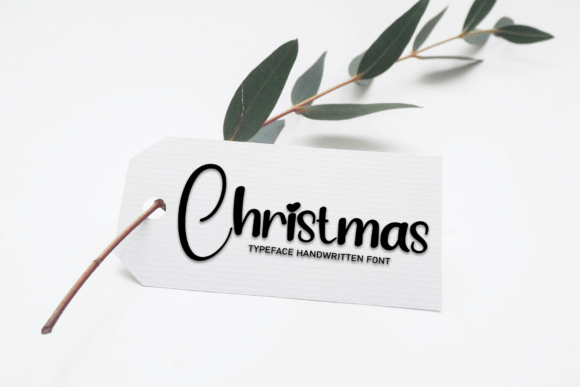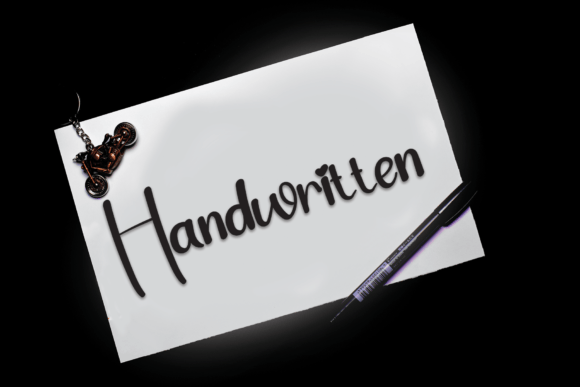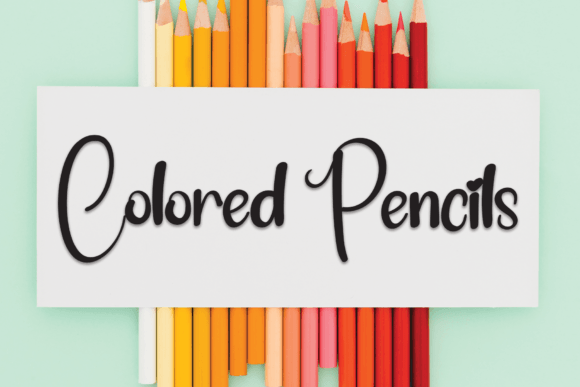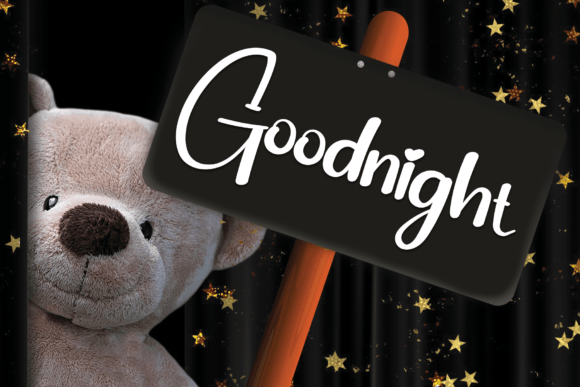
Baby Boho Font: The Ultimate Handwritten Font for Designers and Crafters
In the world of typography, fonts play a crucial role in conveying emotions and setting the tone for various design projects. For designers and crafters looking for a simple yet friendly handwritten font, Baby Boho is an excellent choice. This versatile font is perfect for a wide range of applications, from crafts and digital design to presentations and greeting cards. In this article, we’ll explore the features and benefits of the Baby Boho font and why it’s poised to become your go-to font for any occasion.
What is Baby Boho Font?
Baby Boho is a beautiful, handwritten font designed to bring a touch of warmth and personality to your designs. Its simple and friendly appearance makes it an ideal choice for projects that require a personal and approachable feel. The font’s clean lines and rounded edges give it a soft, inviting look that’s sure to capture the hearts of your audience.
Key Features of Baby Boho Font
- Handwritten appearance: Baby Boho boasts a genuine handwritten look that’s perfect for creating personalized designs.
- Simple and friendly: The font’s simplicity and friendly tone make it suitable for a wide range of projects, from formal to informal.
- Versatile: Baby Boho can be used for various design applications, including crafts, digital design, presentations, and greeting cards.
- Easy to read: The font’s clear and legible design ensures that your text is easy to read, even at smaller sizes.
Benefits of Using Baby Boho Font
So, why should you choose Baby Boho font for your design projects? Here are some benefits that make it an excellent choice:
- Emotional connection: The font’s handwritten appearance and friendly tone help create an emotional connection with your audience.
- Flexibility: Baby Boho’s versatility allows you to use it for various projects, from digital designs to handmade crafts.
- Time-saving: With Baby Boho, you can quickly create professional-looking designs without spending hours on typography.
- Unique style: The font’s distinctive style sets it apart from more traditional fonts, giving your designs a unique touch.
Use Cases for Baby Boho Font
Baby Boho font is suitable for a wide range of design projects, including:
- Crafts: Use Baby Boho for handmade crafts, such as scrapbooking, card making, and journaling.
- Digital design: The font is perfect for digital designs, including social media graphics, blog posts, and website headers.
- Presentations: Add a personal touch to your presentations with Baby Boho’s friendly and approachable appearance.
- Greeting cards: Create beautiful and heartfelt greeting cards with Baby Boho’s elegant and simple design.
Tips for Using Baby Boho Font
To get the most out of Baby Boho font, here are some tips to keep in mind:
- Pair with complementary fonts: Combine Baby Boho with other fonts to create a unique and visually appealing design.
- Experiment with colors: Try out different colors to find the perfect match for your design and brand.
- Use for headlines and body text: Baby Boho is suitable for both headlines and body text, making it a versatile choice for your designs.
In conclusion, Baby Boho font is a simple and friendly handwritten font that’s perfect for designers and crafters looking for a versatile and approachable typography solution. Its key features, benefits, and use cases make it an excellent choice for a wide range of design projects. With Baby Boho, you can create professional-looking designs that capture the hearts of your audience. So, why not give Baby Boho a try and make it your go-to font for any occasion?